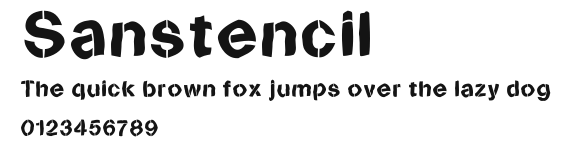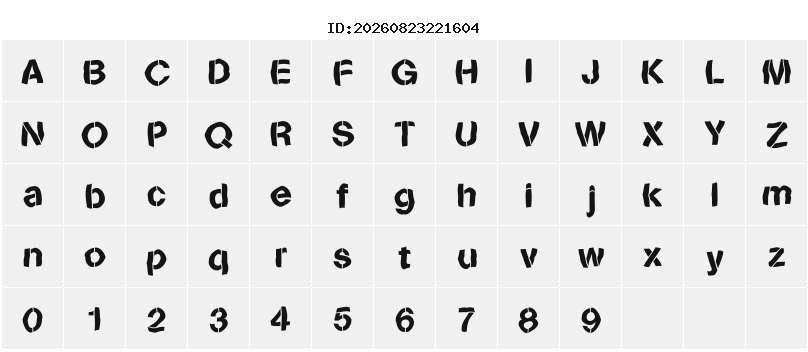
Sanstencil Preview
• Font Name: Sanstencil
About Sanstencil.ttf
Sanstencil.ttf is a modern, elegant sans-serif font designed for ultimate readability and visual harmony. Perfect for branding, headlines, web design, and print materials.